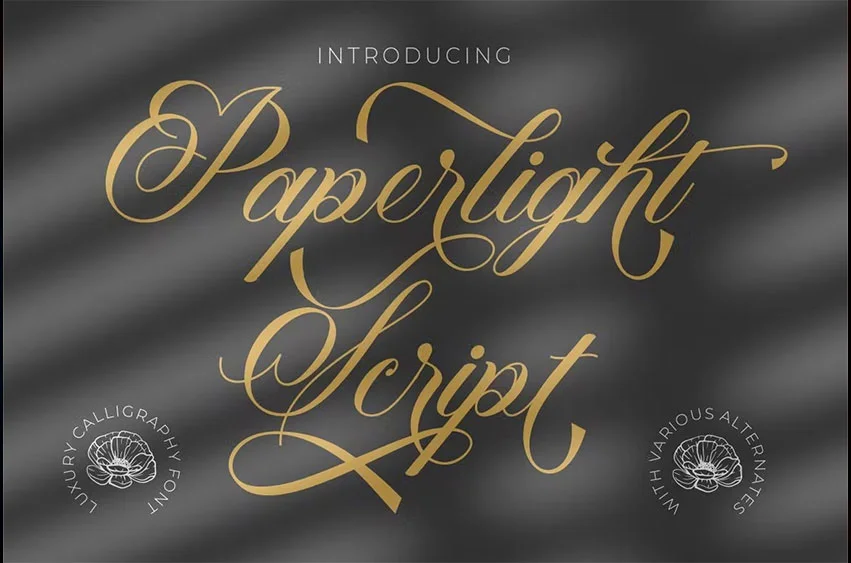
Paperlight Font is a calligraphy font with a classic style and a touch of elegance, inspired by the handwriting of ancient manuscripts. This calligraphy harmony gives the impression of being luxurious, free, and sophisticated. The body text of Paperlight Script font has been designed with high details, preciseness, smoothness, and flow.
Paperlight Script font is carefully designed to work together harmoniously making it perfect for wedding media, book covers, greeting cards, logos, branding, business cards, and certificates, even for any design work that requires classic, formal, or luxurious